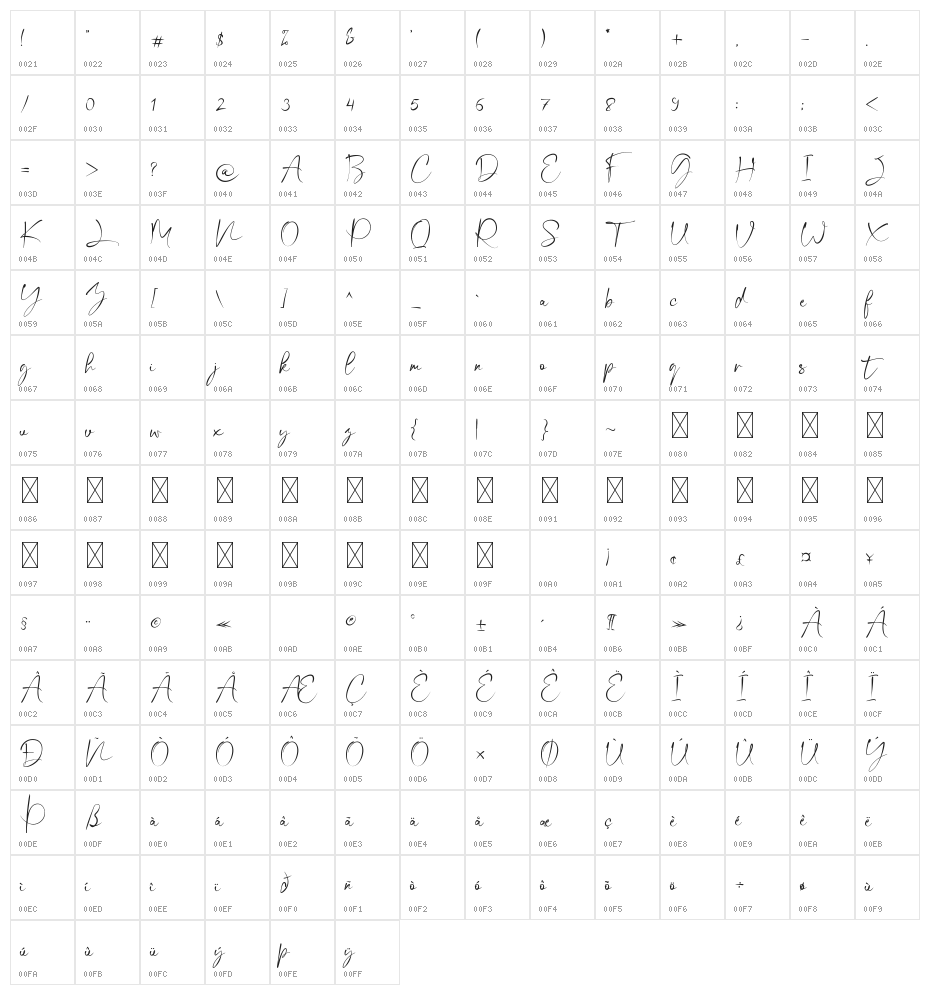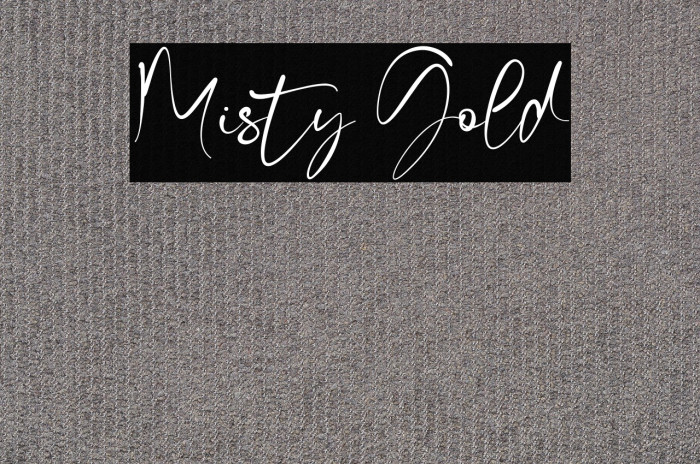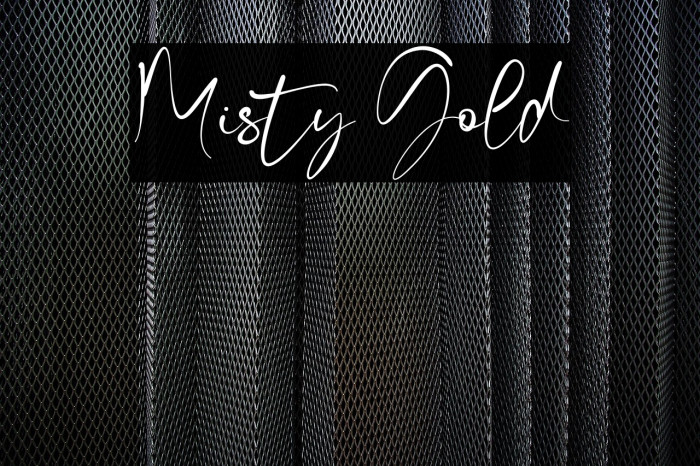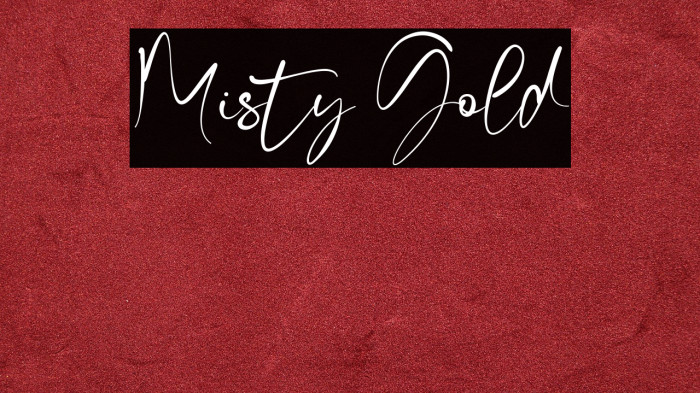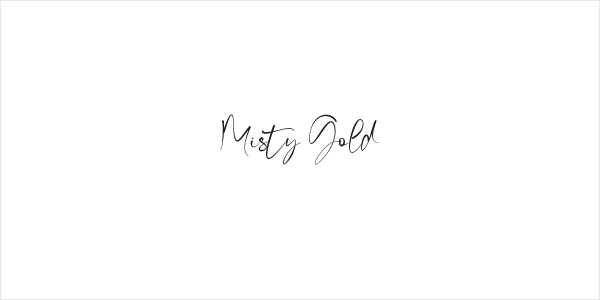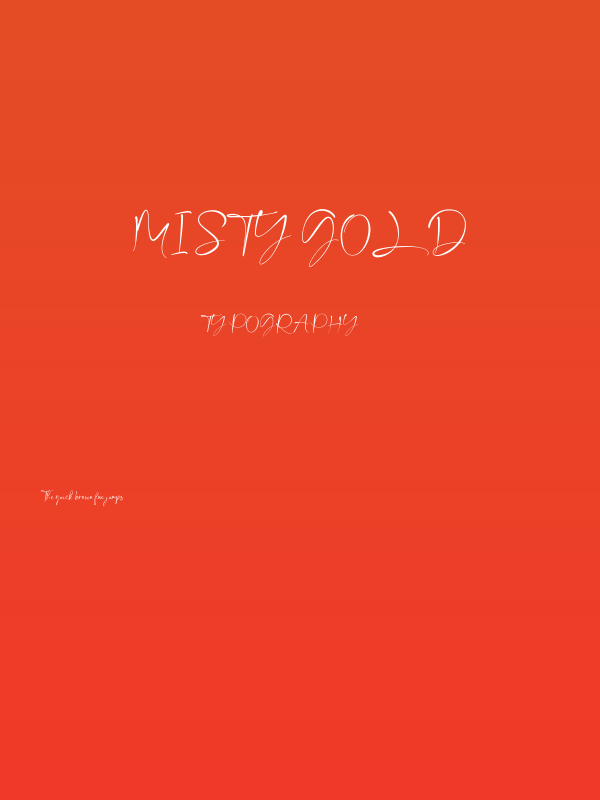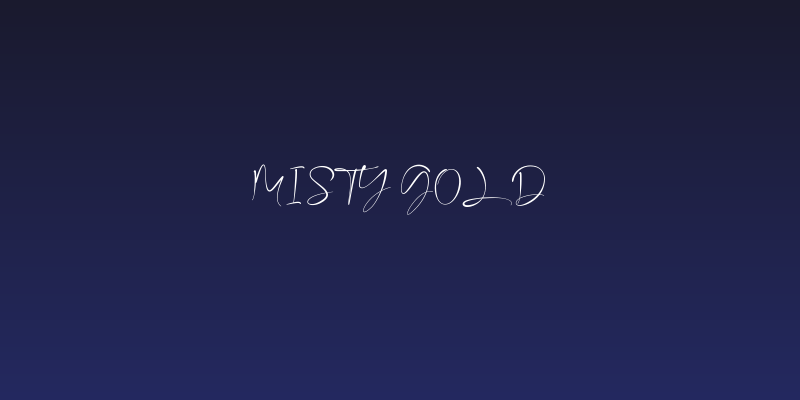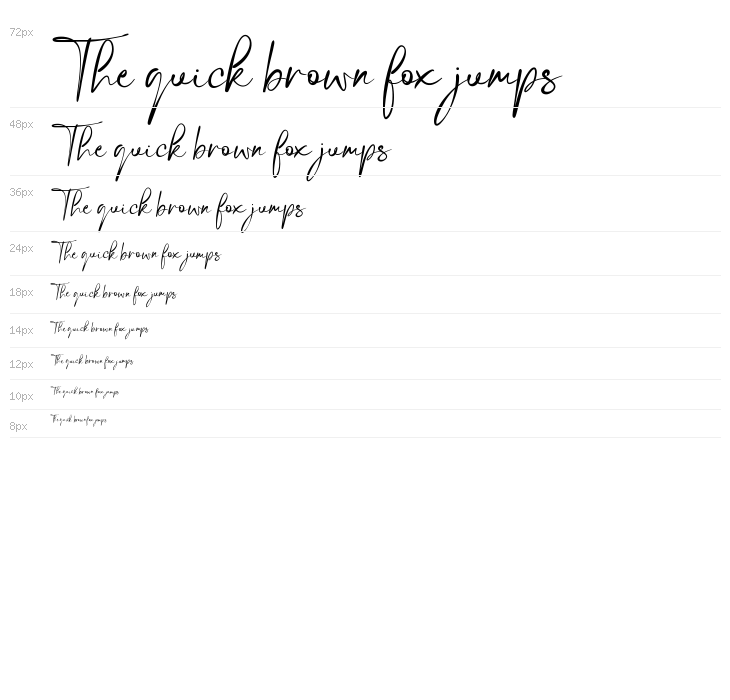
Misty Gold Font
Misty Gold Description
This elegant script font features a flowing, handwritten style with a modern twist. The uppercase letters are tall and slender, with graceful curves and loops that give them a sophisticated appearance. The lowercase letters maintain a consistent flow, with smooth connections between characters, enhancing the overall fluidity of the text. The numerals are distinct and stylish, matching the font's refined aesthetic. Special characters are thoughtfully designed to complement the script's elegant nature. This font exudes a sense of elegance and charm, making it suitable for a variety of creative projects.